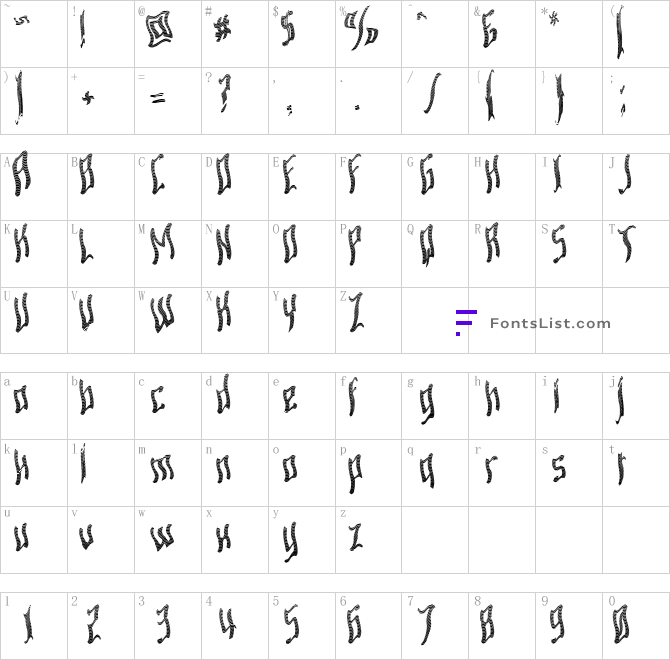
- Font Name:Ardour Waved
Ardour-Waved.ttf is a very beautiful artistic font, Ardour-Waved.ttf is widely used in the design and printing of various books and pictures,Ardour-Waved.ttf has a strong visual impact,Ardour-Waved.ttf is a commonly used font in newspapers, magazines and books, and is used in posters, e-commerce Poster design, store design, logo design, font design and other fields.Ardour-Waved.